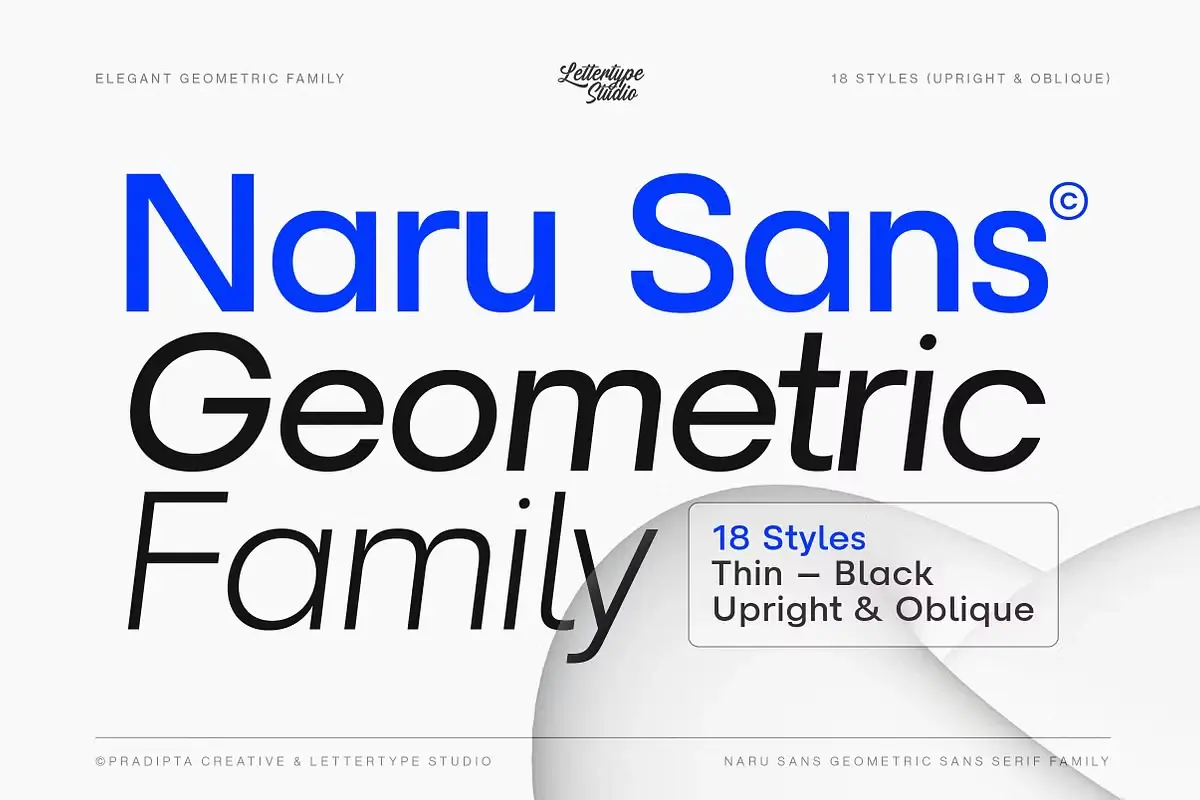
Naru Sans Font
Naru Sans is a geometric sans-serif font with a touch of grotesk style, offering a natural yet expressive appearance. Designed for clarity and functionality, it balances clean geometric influences with a friendly and adaptable aesthetic. With 18 different weights ranging from thin to black, along with oblique styles, this typeface provides versatility for various design needs. Whether for branding, editorial layouts, or digital interfaces, Naru Sans ensures a modern and polished look.
Beyond its structural design, Naru Sans also includes stylistic alternates (K, j, k & y), diverse figure forms, superior and inferior figures, fractions, circled numerators, and standard ligatures. Supporting Latin-based languages, it offers smooth readability without sacrificing style. Ideal for a wide range of projects—including fashion, print media, social media, UI/UX design, and packaging—this font is a perfect choice for designers looking to stay ahead of market trends while maintaining creative freedom.